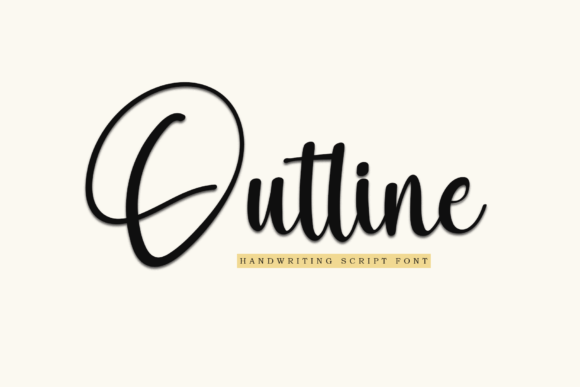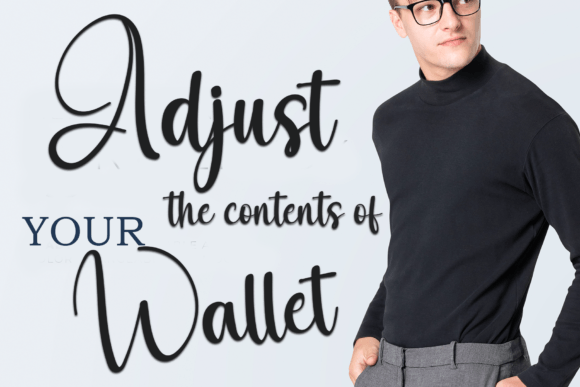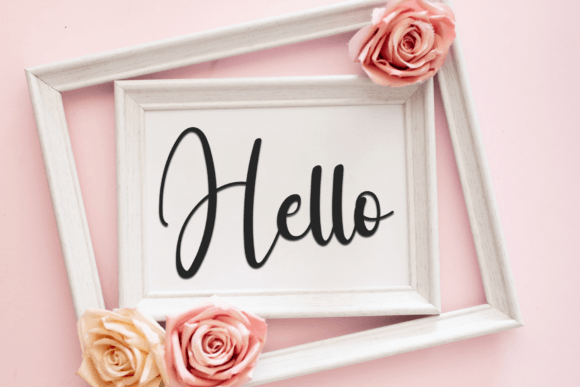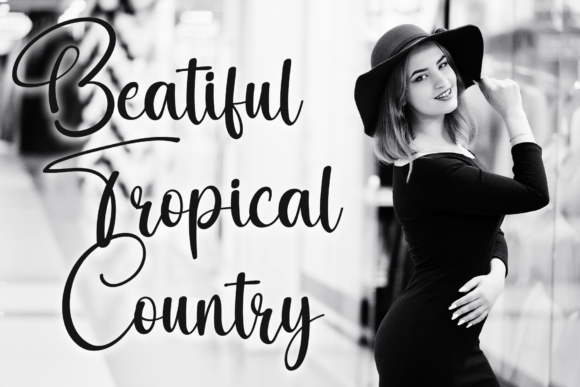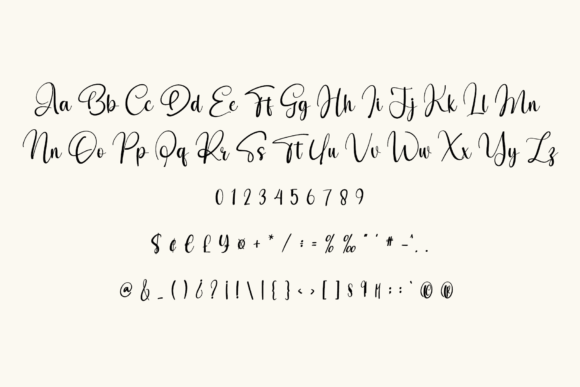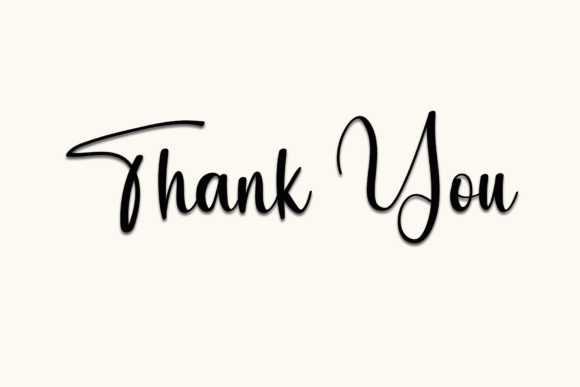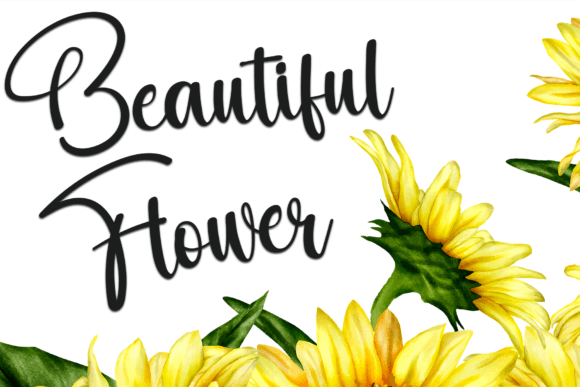
Outline Font
“Outline” is a stylish handwritten font that exudes a contemporary and elegant vibe while drawing inspiration from timeless classic calligraphy. Its balanced and varied design enhances the visual appeal of your projects, making it a versatile choice for a wide range of creative endeavors.
With its contemporary atmosphere and impeccable form, “Outline” proves to be a valuable asset for various design applications. Whether you’re working on branding, invitations, quotes, packaging, or any other creative project, this font elevates the aesthetic quality of your work.
In the realm of branding and corporate identity, “Outline” introduces a distinctive and stylish script that can effectively represent your brand. Whether it’s used for logos, promotional materials, or overall brand identity, this font adds a contemporary and eye-catching element to your brand, helping it stand out in a competitive market.
Invitations and event materials take on an elevated and timeless look with the use of “Outline.” Whether it’s for weddings, parties, or special occasions, this font adds a touch of sophistication, making your invitations and event designs truly captivating.
Quotes and inspirational messages become more visually striking with “Outline.” Its balanced and well-crafted characters enhance the beauty of your words, making them resonate deeply with your audience.
Packaging designs benefit from “Outline’s” stylish and contemporary script, making your products appear more upscale and sophisticated. It helps you create packaging that captures the attention of consumers and communicates quality.
In summary, “Outline” is a stylish handwritten font that masterfully combines contemporary aesthetics with timeless classic calligraphy inspiration. Its capacity to infuse elegance and sophistication into your designs makes it an invaluable asset for designers and creatives aiming to create visually appealing and captivating projects.